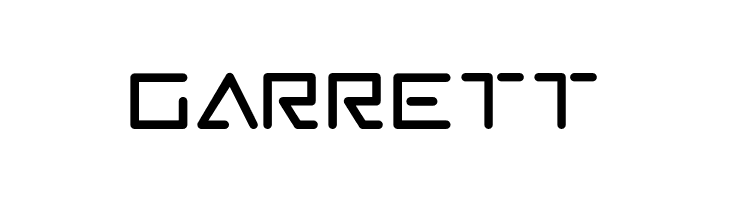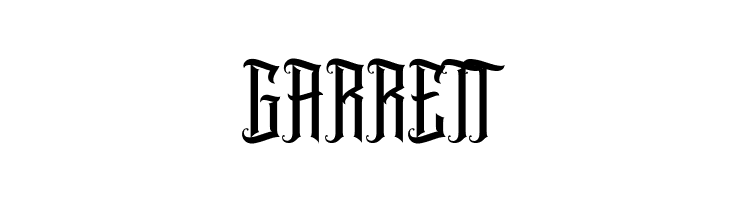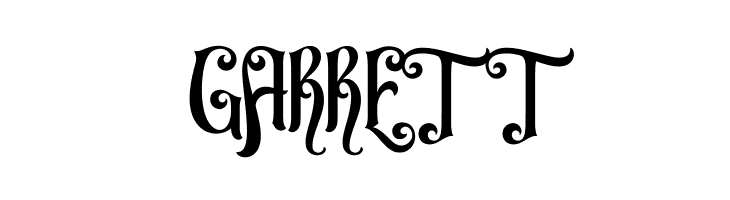
• Auxerre-Boldreduced
A bold serif font with high contrast and sharp serifs, ideal for impactful headlines.
• Auxerre-Italicreduced
Elegant italic serif font with a classic and sophisticated style.
• Auxerre-LightItalicreduced
A refined, elegant serif font with a light, italicized style.
• Auxerre-Lightreduced
A classic serif font with elegant, refined letterforms and delicate serifs.
• Auxerre-MediumItalicreduced
A classic serif font with an elegant italic slant and moderate contrast.
• Auxerre-Mediumreduced
A classic serif font with bold strokes and sharp serifs, ideal for formal use.
• Auxerre-Regularreduced
A classic serif font with elegant, sharp serifs and moderate contrast, ideal for traditional and formal designs.
• AuxteraCircaPersonalUseOnly-Cir
An ornate blackletter font with gothic and medieval influences.
• Auzbigo
A playful, slanted handwritten font with bold, dynamic characters.
• Auzbigo
A playful, handwritten-style font with bold, dynamic strokes.
• AVA
A geometric, futuristic font with clean lines and sharp angles.
• Avaca Davra
A bold, brush-style font with sharp, jagged edges and an energetic flow.
• Avagan Demo Version
A modern, angular font with elegant curves and strong geometric forms.
• Available Italic
A sleek, modern italic font with rounded characters and consistent stroke widths.
• Available Regular
A modern, geometric font with rounded edges and uniform stroke width.
• AvailaBrush
A bold, brush-style font with dynamic, hand-painted strokes.
• AvalanchenoBitma
• Avalen Rekas Regular
A bold, gothic-inspired blackletter font with high contrast and ornate details.
• Avalen Rekas Regular
An ornate blackletter style font with decorative flourishes and bold structure.
• Avalien
An elegant script font with flowing, cursive characters and intricate swashes.
• Avalon Old Skool Graff
• Avalon Regular